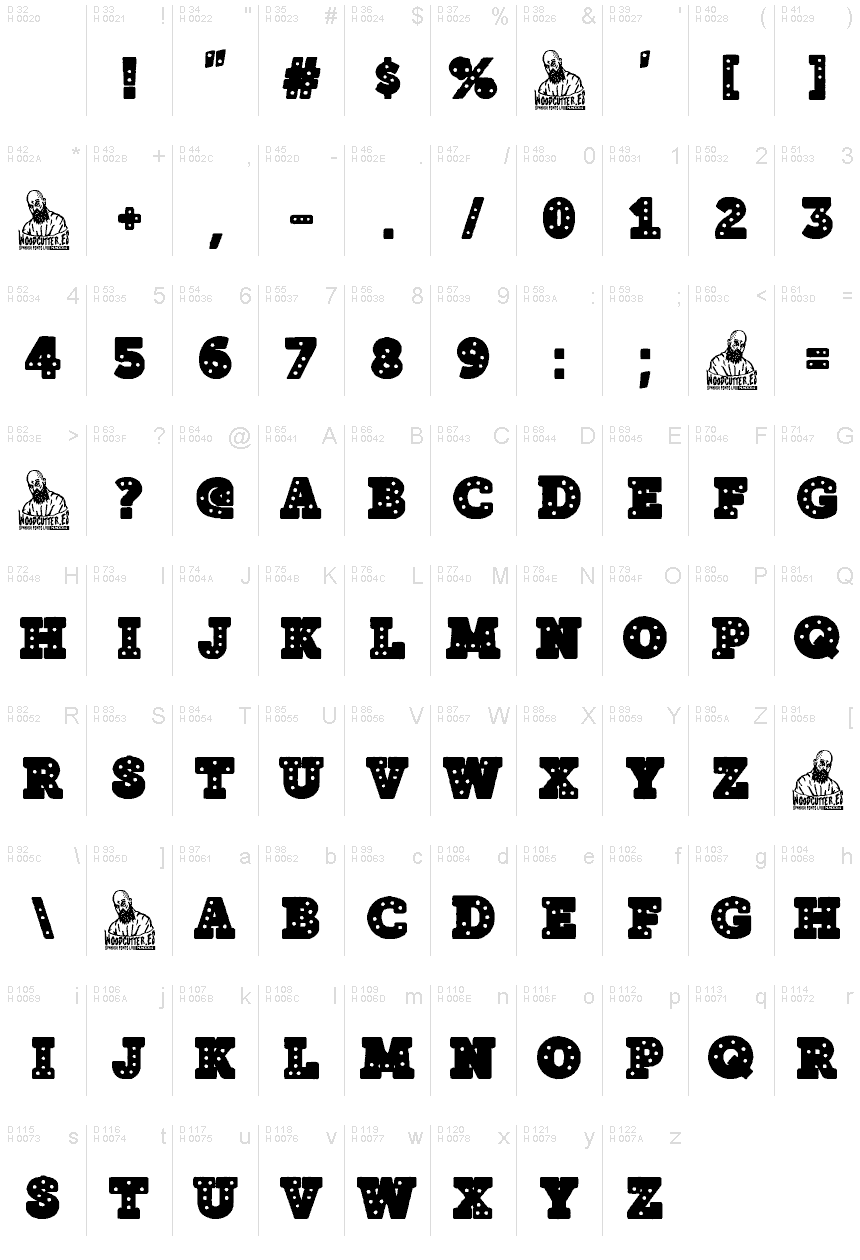
Neon Lights of Sin City
Neon Lights of Sin City font by Woodcutter embodies a retro-inspired aesthetic, combining geometric shapes with bold, decorative elements. This display font offers a lively yet nostalgic vibe that instantly captures attention and delivers a high visual impact. Display an easy-going spirit and joyful atmosphere with every use.
Free of charge for download, this outstanding font suits vintage branding projects for restaurants or featured in signage applications. Nevertheless, it can perfectly fit music album covers designs as well as posters where you want to showcase nostalgia. Use also the typeface in images shared on social media or printed t-shirts and other clothing pieces.